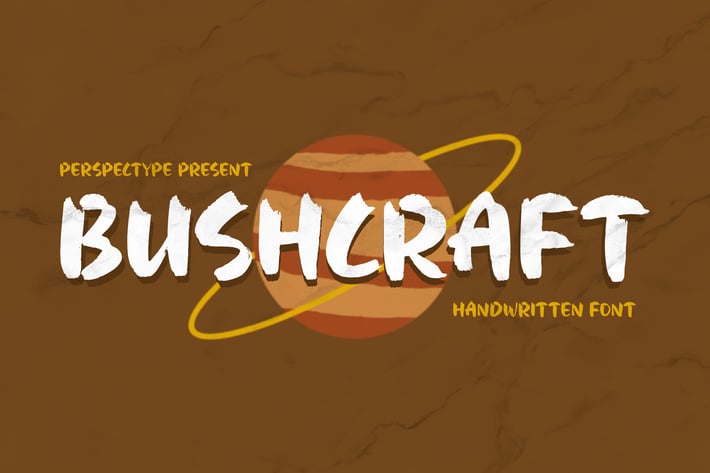
Bushcraft Handwritten Font
Bushcraft is a bold handwritten font that captures the spirit of adventure and creativity. With rugged, textured strokes inspired by brush lettering, it brings an organic and energetic feel to your design projects. Perfect for anyone looking to convey authenticity and a sense of movement.
Bold, handcrafted brush lettering style
Natural texture for a rustic and adventurous look
Great legibility for both headlines and body text
Posters and adventure branding
Outdoor product packaging
Music or event promotions
Social media graphics
Handcrafted logo design
* Editorial and lifestyle content
Bring a touch of bold, organic energy to your designs with Bushcraft — where handwritten charm meets adventurous spirit.